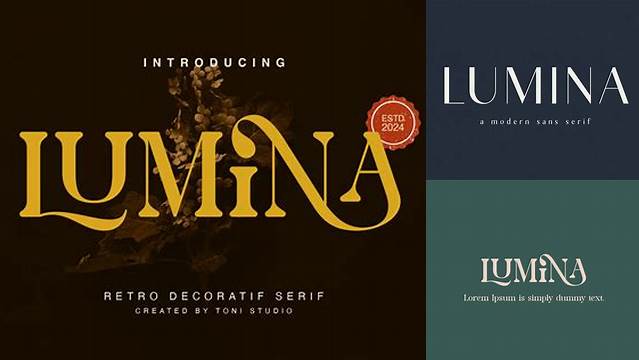
Lumina Free Font Download: Your Ultimate Guide
Hey guys! Are you looking for the perfect font to add a touch of elegance and modernity to your design projects? Well, you've come to the right place! In this comprehensive guide, we're diving deep into the world of Lumina, a stunning font that you can download for free. We'll explore everything from its unique characteristics and best uses to where you can find it and how to install it. So, let's get started and illuminate your designs with Lumina!
1. What Makes Lumina Font Special?
So, what exactly makes Lumina stand out from the crowd? Well, Lumina isn't just any font; it's a carefully crafted typeface designed with both aesthetics and functionality in mind. Its clean lines and contemporary feel make it incredibly versatile, fitting seamlessly into a wide range of design projects. Think sleek logos, captivating headlines, professional websites, and even eye-catching print materials. The beauty of Lumina lies in its simplicity β it's elegant without being overly ornate, making it a fantastic choice for designs that aim for a modern and sophisticated look. But beyond its visual appeal, Lumina also boasts excellent readability. The spacing and letterforms are designed to ensure that text remains clear and legible, even at smaller sizes. This makes it an ideal option for body text as well, where clarity is key. In short, Lumina is special because it strikes the perfect balance between style and substance, offering designers a powerful tool to create stunning visuals that are both beautiful and effective. Its versatility and readability mean it can be used in almost any design context, making it a valuable addition to any font library. Plus, the fact that you can download Lumina for free makes it even more appealing! Who doesn't love a high-quality font that doesn't break the bank? Whether you're a seasoned designer or just starting out, Lumina is a font worth exploring. Its unique blend of elegance and practicality is sure to elevate your projects and help you create designs that truly shine.
2. Best Uses for Lumina Font: Unleash Your Creativity
Okay, so you're intrigued by Lumina, but you're probably wondering where it truly shines. The beauty of Lumina is its versatility; itβs like the Swiss Army knife of fonts! But let's dive into some specific use cases where Lumina can really elevate your projects. First off, think branding. If you're crafting a logo or brand identity that screams modern and sophisticated, Lumina is your go-to. Its clean lines and contemporary feel lend themselves perfectly to creating a polished and professional brand image. Imagine a sleek logo with Lumina as the typeface β it's instantly recognizable and exudes confidence. Next up, websites. In the digital realm, readability is king, and Lumina delivers. It works wonderfully for both headlines and body text, ensuring a seamless and enjoyable user experience. Plus, its elegant aesthetic adds a touch of class to any web design. Moving on to print materials, Lumina is equally at home on brochures, flyers, and posters. Its clarity ensures that your message is easily conveyed, while its stylish appearance grabs attention. Imagine a beautifully designed poster with a bold Lumina headline β it's sure to make a statement. And let's not forget social media graphics! In the fast-paced world of social media, visuals are everything. Lumina can help your posts stand out from the crowd, whether you're creating eye-catching graphics or simply adding text overlays to images. Its modern aesthetic is perfect for capturing attention and conveying your message effectively. But the possibilities don't stop there! Lumina is also fantastic for presentations, eBooks, and even personal projects like invitations and cards. Its versatility knows no bounds, making it a valuable asset for any designer or creative enthusiast. So, whether you're a seasoned pro or just starting out, Lumina is a font that can truly unlock your creative potential. It's time to unleash your imagination and see what you can create with this stunning typeface!
5. Lumina Font Alternatives: Exploring Similar Styles
Okay, so Lumina is fantastic, but what if you're looking for something just a little bit different? Or maybe you need a backup option for a specific project. The good news is that there are plenty of Lumina font alternatives out there that offer a similar aesthetic. Let's explore some options! If you love Lumina's clean and modern feel, you might also be drawn to fonts like Montserrat and Open Sans. These are both popular choices for web and print design, thanks to their excellent readability and versatile nature. Montserrat has a slightly more geometric look than Lumina, while Open Sans is a bit more rounded and friendly. Another great alternative is Lato. This sans-serif font has a warm and approachable feel, making it a great choice for projects that need a touch of personality. Lato is also incredibly versatile, working well in both headlines and body text. If you're looking for something a bit more elegant and refined, consider Raleway. This font has a slightly more sophisticated look than Lumina, with delicate lines and a graceful appearance. Raleway is a fantastic option for logos, branding materials, and headlines. For a more minimalist and contemporary feel, try Poppins. This geometric sans-serif font has a clean and modern look that's perfect for websites, apps, and other digital projects. Poppins is also highly readable, making it a great choice for body text. If you want something with a bit more personality, consider Nunito Sans. This font has rounded terminals and a friendly feel, making it a great option for projects that need a touch of warmth. Nunito Sans is also incredibly versatile, working well in a variety of design contexts. And let's not forget Roboto! This font is a staple in the design world, thanks to its clean lines, excellent readability, and wide range of weights and styles. Roboto is a fantastic all-around font that can be used in just about any project. When choosing a Lumina font alternative, it's important to consider the specific needs of your project. Think about the overall tone and message you want to convey, and choose a font that aligns with that. Also, pay attention to readability and versatility. A good alternative should be easy to read in a variety of sizes and should work well in both headlines and body text. Don't be afraid to experiment with different fonts and combinations to find the perfect fit for your project. The world of typography is vast and exciting, so have fun exploring and discovering new favorites!
7. Lumina Font Pairing: Complementary Typefaces
Okay, so you've got Lumina installed and you're ready to use it in your designs. But a single font doesn't make a design β you often need to pair it with another typeface to create a cohesive and visually appealing look. Font pairing is an art in itself, and choosing the right complementary typeface can make a huge difference in the overall impact of your design. The key to successful font pairing is to create contrast while maintaining harmony. You want to choose a font that complements Lumina's strengths without clashing or competing for attention. One approach is to pair Lumina, a clean sans-serif font, with a serif font for a classic and elegant look. Serif fonts have small decorative strokes at the ends of the letters, which can add a touch of formality and sophistication. Some great serif font pairings for Lumina include: * Merriweather: This serif font has a warm and friendly feel, making it a great choice for body text. * Playfair Display: This elegant serif font is perfect for headlines and titles, adding a touch of luxury to your designs. * Lora: This well-balanced serif font is both readable and stylish, making it a versatile choice for a variety of projects. Another approach is to pair Lumina with another sans-serif font, but one that has a different personality or weight. This can create a more modern and dynamic look. Some excellent sans-serif font pairings for Lumina include: * Open Sans: This classic sans-serif font is highly readable and works well in a variety of contexts. * Roboto: This versatile sans-serif font has a clean and modern feel, making it a great choice for both headlines and body text. * Montserrat: This geometric sans-serif font has a bold and modern look that complements Lumina nicely. When pairing fonts, it's important to consider the overall tone and message of your design. Are you going for a formal and professional look? Or something more casual and playful? The fonts you choose should reflect the mood you're trying to create. It's also a good idea to limit yourself to two or three fonts in a single design. Using too many fonts can make your design look cluttered and confusing. Choose one or two primary fonts for your headings and body text, and then use a third font sparingly for accents or captions. Finally, don't be afraid to experiment and try different font pairings. There are no hard and fast rules when it comes to font pairing, so trust your instincts and have fun exploring the possibilities. With a little practice, you'll be able to create stunning designs that showcase Lumina and its complementary typefaces in the best possible light.
8. Lumina Font in Branding: Creating a Visual Identity
So, you're thinking of using Lumina font in your branding, huh? Great choice! Lumina's clean and modern aesthetic makes it a fantastic option for creating a visual identity that exudes professionalism and sophistication. But using a font effectively in branding goes beyond just picking something that looks nice. It's about understanding how the font communicates your brand's personality and values. Your brand's visual identity is more than just a logo; it's the entire visual representation of your brand, including your colors, imagery, and typography. And typography plays a crucial role in conveying your brand's message. The fonts you choose can influence how people perceive your brand, so it's essential to select them carefully. When using Lumina in branding, consider how its characteristics align with your brand's personality. Lumina's clean lines and contemporary feel make it well-suited for brands that want to project a modern, sophisticated, and trustworthy image. It's a great choice for businesses in industries like technology, finance, design, and consulting. Think about how Lumina can be used in different aspects of your brand identity. It can be used for your logo, website, marketing materials, and even your social media graphics. Consistency is key in branding, so it's important to use Lumina consistently across all your brand touchpoints. In your logo, Lumina can be used to create a clean and legible wordmark. Its simplicity makes it easy to read and recognize, even at smaller sizes. You can also pair Lumina with a complementary font for a more dynamic look, as discussed earlier. On your website, Lumina can be used for both headings and body text. Its excellent readability ensures a seamless user experience, while its modern aesthetic adds a touch of class to your web design. In your marketing materials, such as brochures, flyers, and business cards, Lumina can help you create a professional and polished look. Its versatility makes it suitable for a variety of layouts and designs. For your social media graphics, Lumina can help your posts stand out from the crowd. Use it for text overlays, captions, and even within your graphics to maintain a consistent brand identity. When using Lumina in branding, it's also important to consider your target audience. What kind of message do you want to send to your customers? How do you want them to perceive your brand? Your typography should align with your target audience's preferences and expectations. Finally, remember that branding is an ongoing process. Your visual identity may evolve over time as your brand grows and changes. Be open to experimenting with different font pairings and design elements to keep your brand looking fresh and relevant. With its timeless appeal and versatile nature, Lumina can be a valuable asset in building a strong and memorable brand identity.
9. Lumina Font in Web Design: Enhancing User Experience
25. Lumina Font in Packaging Design: Making Products Pop
26. Lumina Font and White Space: Achieving Visual Balance
27. Lumina Font for Infographics: Presenting Data Clearly
28. Lumina Font in Motion Graphics: Dynamic Typography
29. Lumina Font and Creative Font Pairings: Exploring New Styles
30. Lumina Font: Tips and Tricks for Advanced Usage